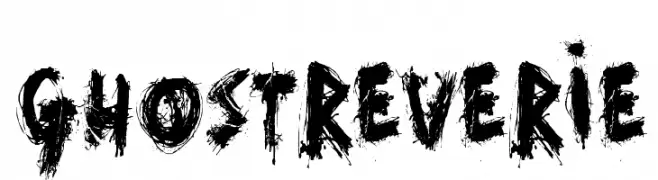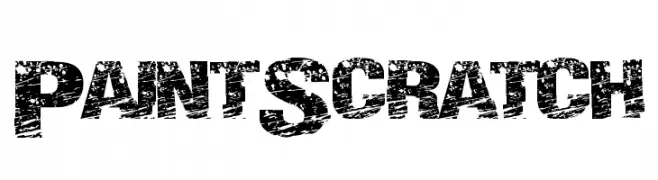
A bold, grungy font with jagged, distressed strokes for a dramatic effect.
A bold, distressed font with a rugged, textured appearance.
A bold, distressed font with a grunge texture for a rugged, edgy look.
A rugged, textured font with a splintered wood appearance.
A bold, distressed font with a vintage, industrial feel.
A bold, distressed font with a grunge aesthetic and textured, irregular edges.
A bold, distressed font with a rugged, vintage aesthetic.